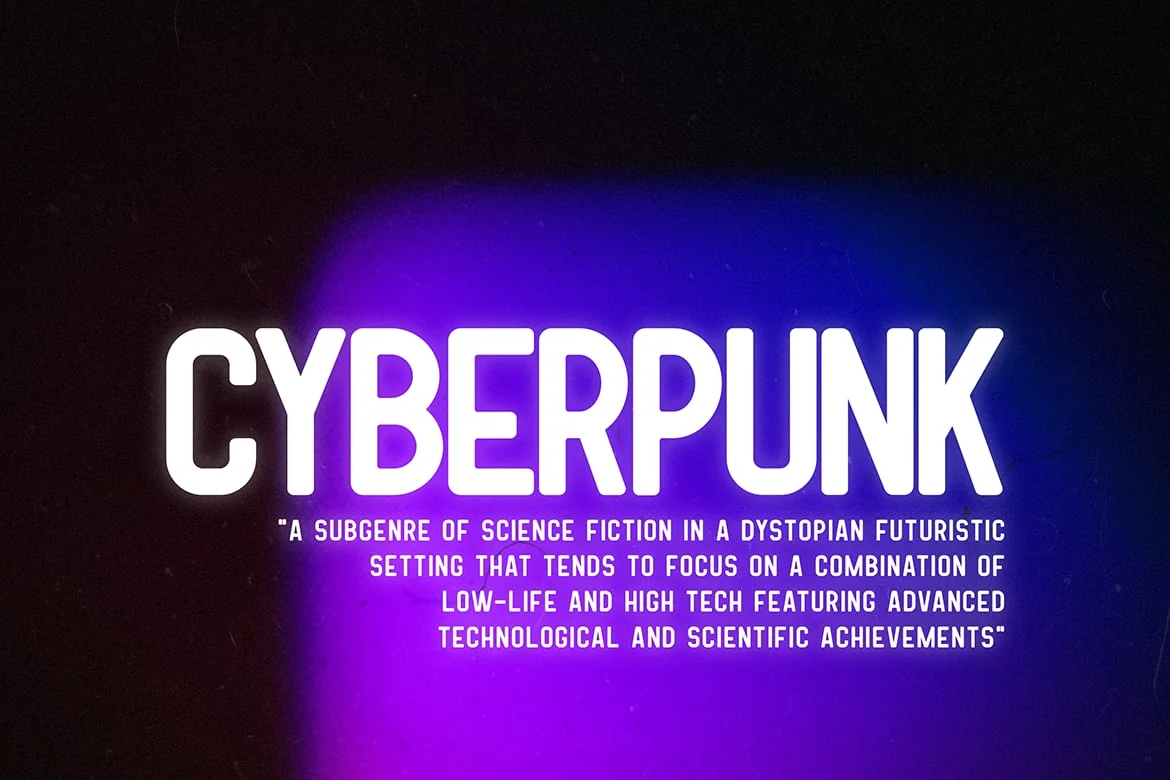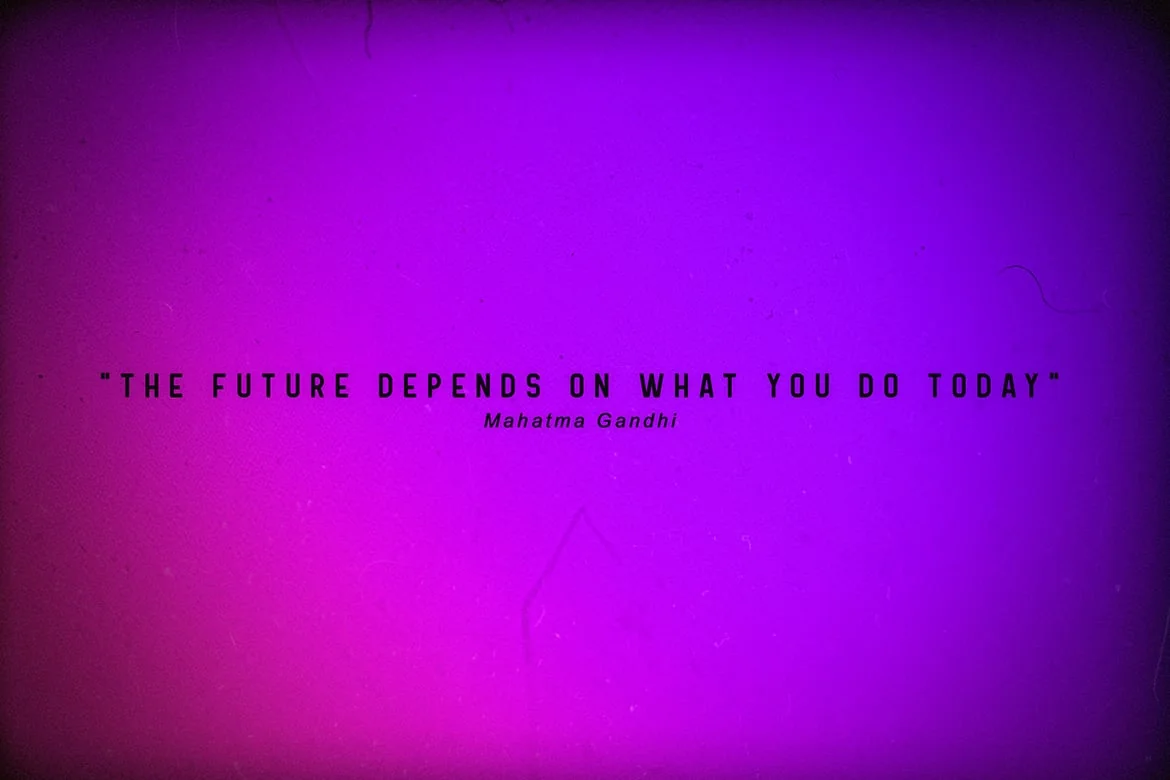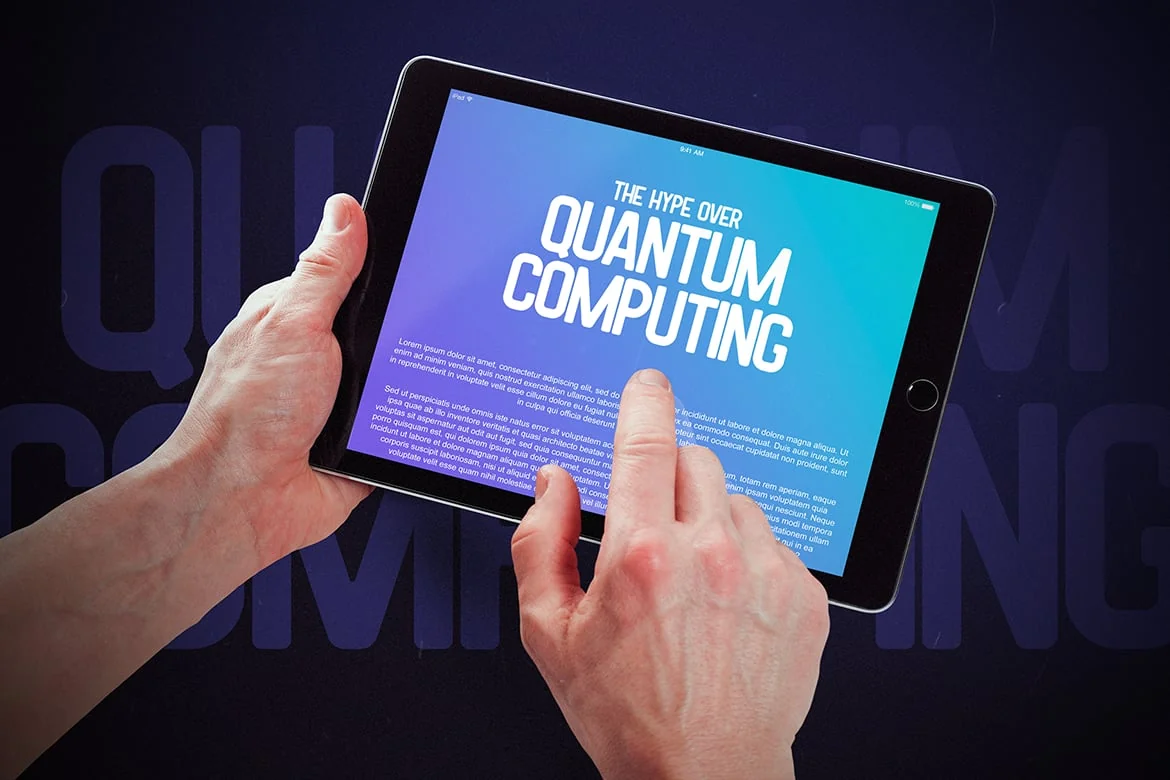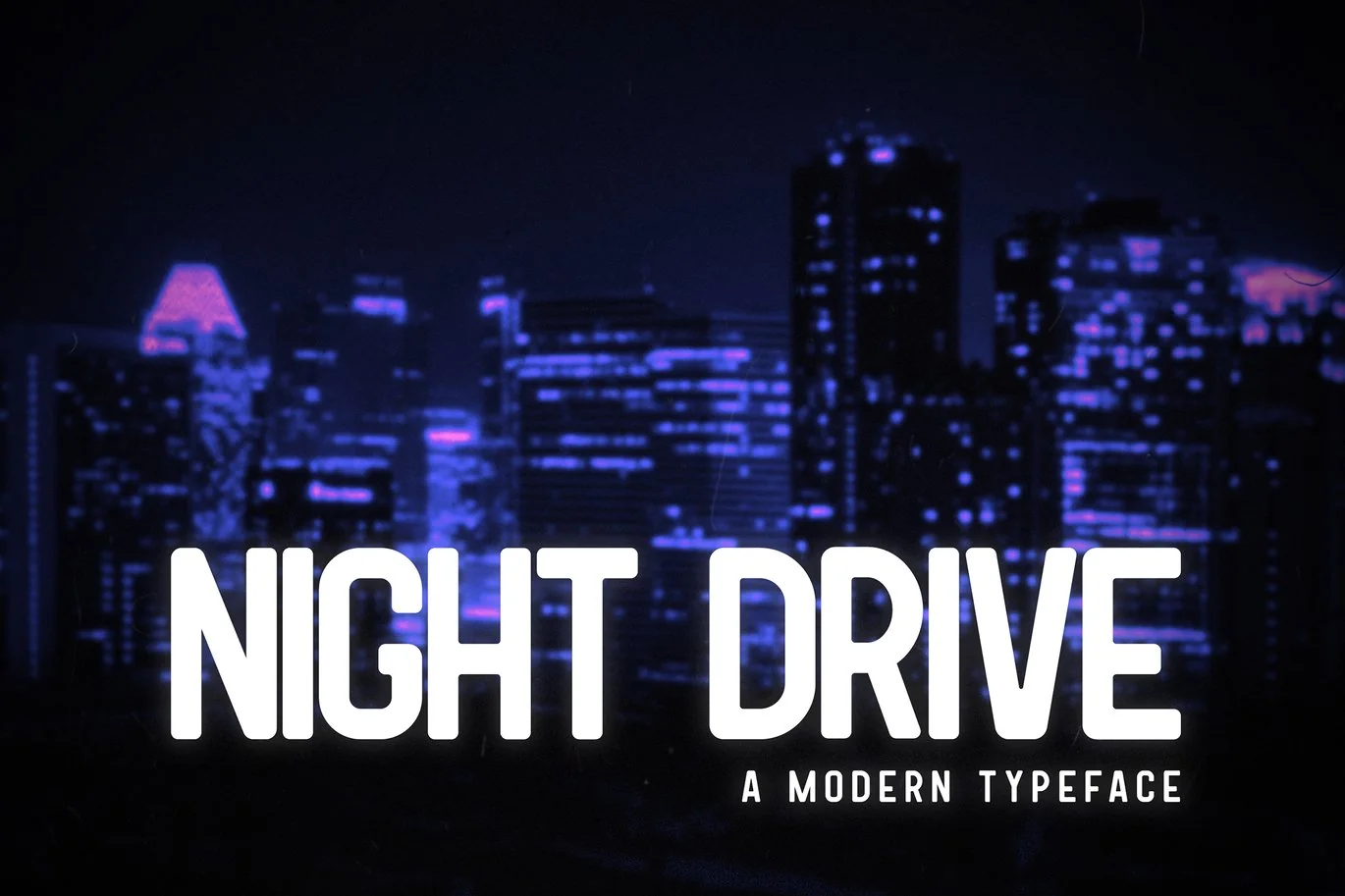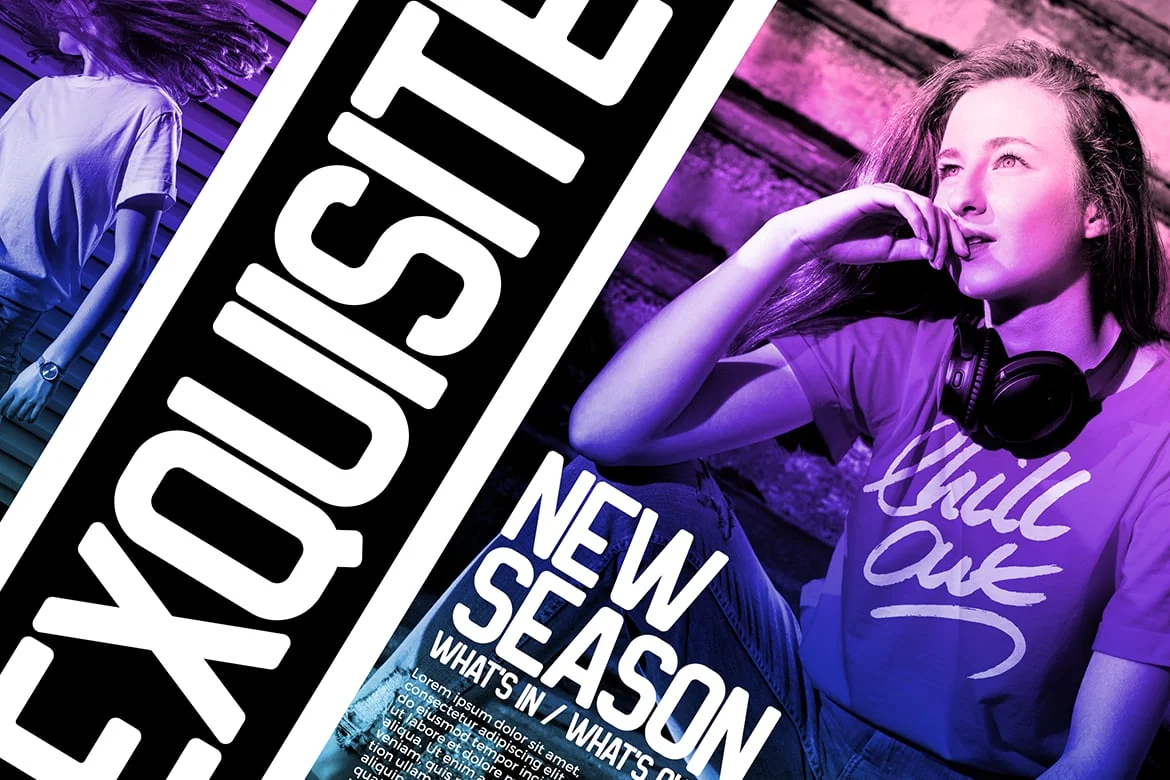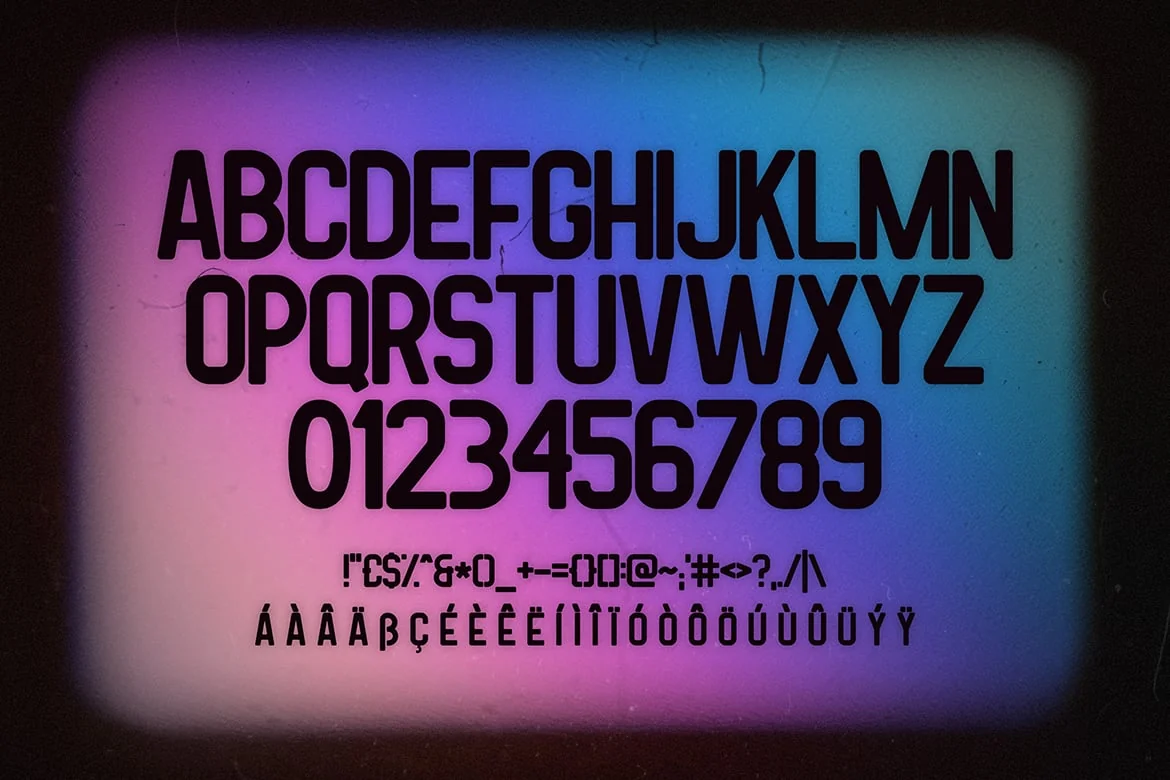
Night Drive Font
Night Drive is a modern strong uppercase sans-serif font great mainly for headings. It incorporates hard lines and smooth curves with rounded corners. Language support: English, German, Spanish, French and Italian.